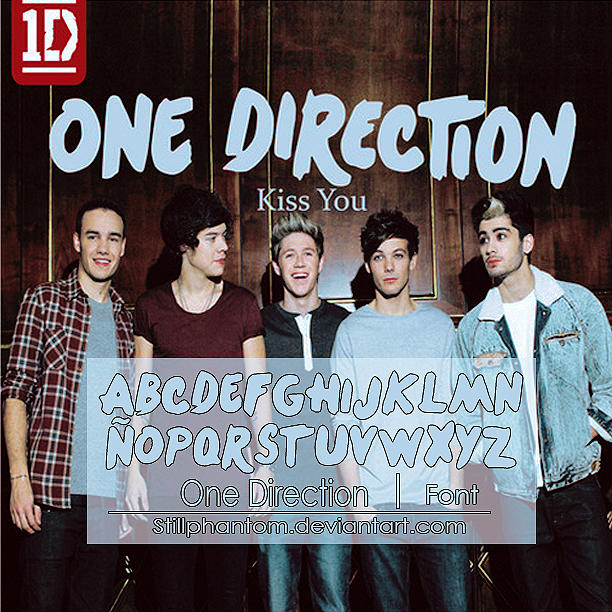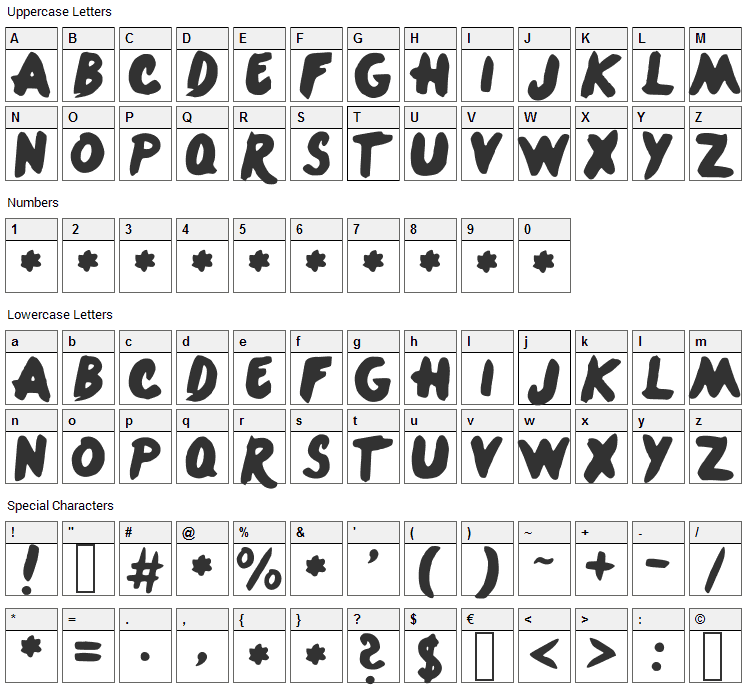
One Direction Font
One Direction Font - Web looking for one direction fonts? Click to find the best 2 free fonts in the one direction style. View all glyphs (143) onedirection.ttf view all glyphs (143) Sort by more options one direction € by boobearsarse. The other one is the custom designed one direction logotype. Web first seen on dafont: Every font is free to download! Web one is the white lettering “1d” on a red tag, with two bold lines on the top and the bottom of letters.
Every font is free to download! Web looking for one direction fonts? View all glyphs (143) onedirection.ttf view all glyphs (143) Sort by more options one direction € by boobearsarse. The other one is the custom designed one direction logotype. Web one is the white lettering “1d” on a red tag, with two bold lines on the top and the bottom of letters. Web first seen on dafont: Click to find the best 2 free fonts in the one direction style.
Web looking for one direction fonts? Click to find the best 2 free fonts in the one direction style. Sort by more options one direction € by boobearsarse. View all glyphs (143) onedirection.ttf view all glyphs (143) Every font is free to download! Web one is the white lettering “1d” on a red tag, with two bold lines on the top and the bottom of letters. Web first seen on dafont: The other one is the custom designed one direction logotype.
Web one is the white lettering “1d” on a red tag, with two bold lines on the top and the bottom of letters. Web first seen on dafont: Web looking for one direction fonts? Click to find the best 2 free fonts in the one direction style. Sort by more options one direction € by boobearsarse.
One Direction
Web first seen on dafont: Web looking for one direction fonts? Click to find the best 2 free fonts in the one direction style. Every font is free to download! View all glyphs (143) onedirection.ttf view all glyphs (143)
Sort by more options one direction € by boobearsarse. Web one is the white lettering “1d” on a red tag, with two bold lines on the top and the bottom of letters. Web first seen on dafont: Web looking for one direction fonts? Click to find the best 2 free fonts in the one direction style.
Web looking for one direction fonts? Web one is the white lettering “1d” on a red tag, with two bold lines on the top and the bottom of letters. Every font is free to download! View all glyphs (143) onedirection.ttf view all glyphs (143) Click to find the best 2 free fonts in the one direction style.
View all glyphs (143) onedirection.ttf view all glyphs (143) Sort by more options one direction € by boobearsarse. Every font is free to download! The other one is the custom designed one direction logotype. Web one is the white lettering “1d” on a red tag, with two bold lines on the top and the bottom of letters.
The other one is the custom designed one direction logotype. Web first seen on dafont: Sort by more options one direction € by boobearsarse. Web one is the white lettering “1d” on a red tag, with two bold lines on the top and the bottom of letters. View all glyphs (143) onedirection.ttf view all glyphs (143)
The other one is the custom designed one direction logotype. View all glyphs (143) onedirection.ttf view all glyphs (143) Every font is free to download! Sort by more options one direction € by boobearsarse. Web one is the white lettering “1d” on a red tag, with two bold lines on the top and the bottom of letters.
One Direction Font Free Download
Web one is the white lettering “1d” on a red tag, with two bold lines on the top and the bottom of letters. View all glyphs (143) onedirection.ttf view all glyphs (143) Web looking for one direction fonts? Sort by more options one direction € by boobearsarse. Click to find the best 2 free fonts in the one direction style.
One Direction Font by JoseCr97 on DeviantArt
View all glyphs (143) onedirection.ttf view all glyphs (143) Web looking for one direction fonts? Every font is free to download! The other one is the custom designed one direction logotype. Sort by more options one direction € by boobearsarse.
'One Direction' FONT by patstrick on DeviantArt
Web looking for one direction fonts? Every font is free to download! Web one is the white lettering “1d” on a red tag, with two bold lines on the top and the bottom of letters. View all glyphs (143) onedirection.ttf view all glyphs (143) Sort by more options one direction € by boobearsarse.
The Other One Is The Custom Designed One Direction Logotype.
Sort by more options one direction € by boobearsarse. View all glyphs (143) onedirection.ttf view all glyphs (143) Click to find the best 2 free fonts in the one direction style. Web first seen on dafont:
Web Looking For One Direction Fonts?
Web one is the white lettering “1d” on a red tag, with two bold lines on the top and the bottom of letters. Every font is free to download!